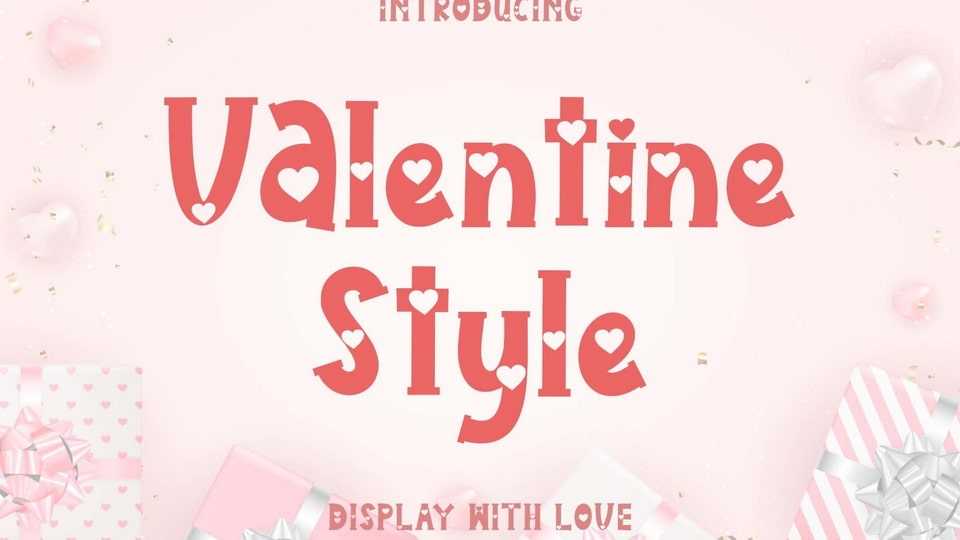
Download Valentine Style font, a display typeface decorated with heart-shaped letters and is very easy to use. Very suitable for valentines, weddings, stickers, romantic moments, spring, winter and others.